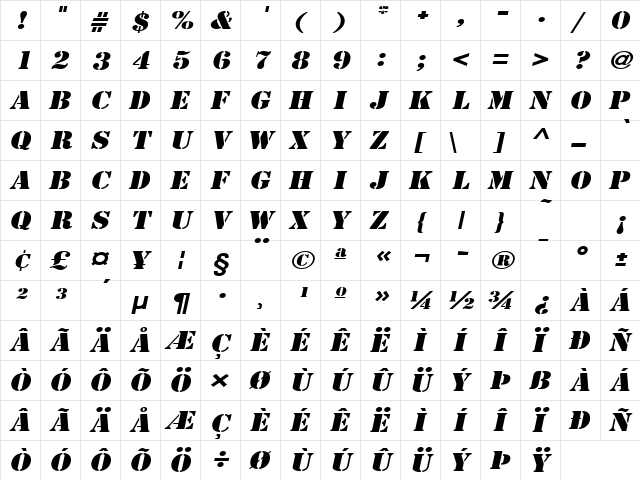
GI StencilExtended Italic
Design Context for GI StencilExtended Typeface
GI StencilExtended has the rough pragmatism of spray-painted stencil signage, adding a raw, street-level authenticity to designs. The slanted form adds forward momentum and visual energy.
Ideal for industrial branding, streetwear, military-adjacent aesthetics, and urban signage projects.
Pro Tip: Pair GI StencilExtended with raw, utilitarian design elements — exposed concrete textures, flat colour, and minimal ornamentation suit it well.